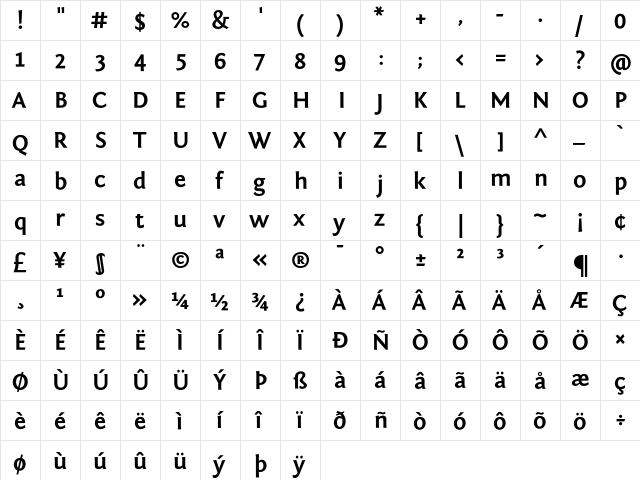
Fontin Sans Bold
| Foundry | Jos Buivenga |
Design Context for Fontin Sans Typeface
Fontin Sans offers clean, dependable letterforms without strong stylistic allegiance, making it a practical choice for designers who need flexibility. Its bold stroke weight gives it real presence on the page.